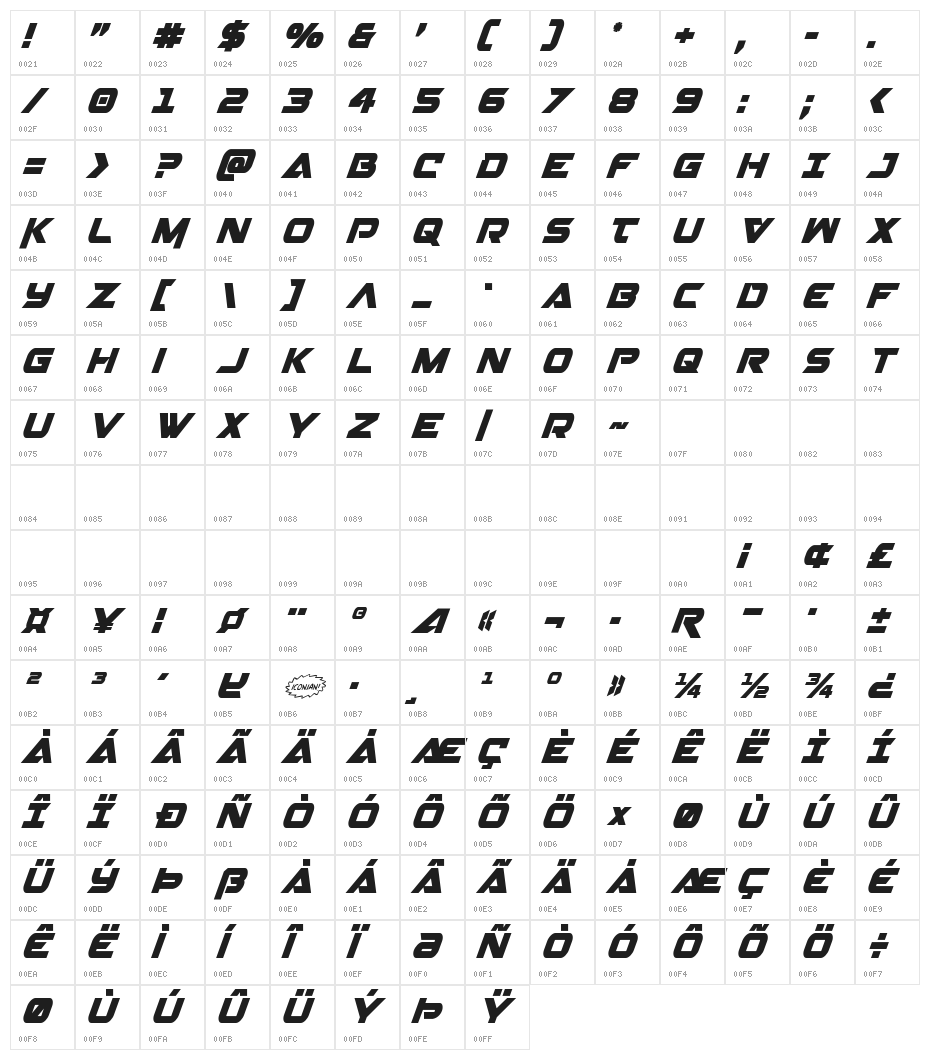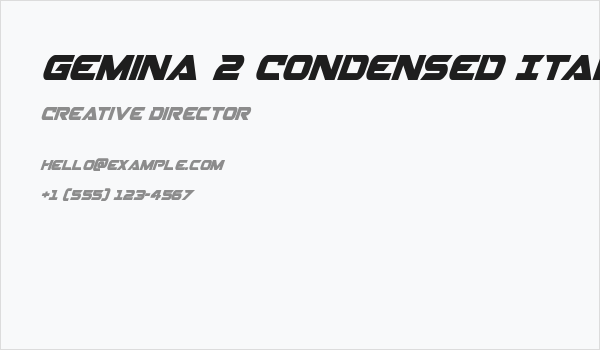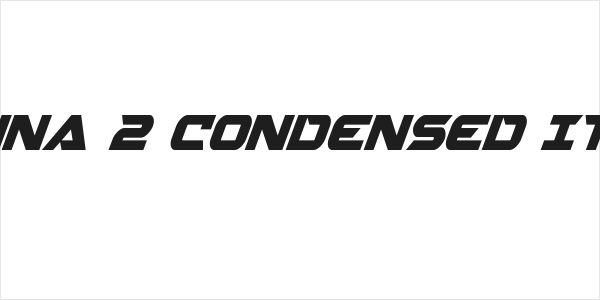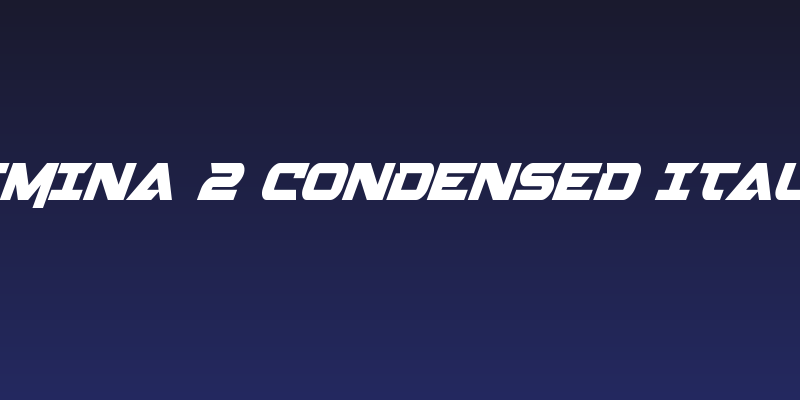
Gemina 2 Condensed Italic Font
Gemina 2 Condensed Italic Description
This font features a dynamic and angular design, characterized by its italicized and condensed form. The letters are sharply cut with a futuristic and aggressive style, making it stand out with its bold presence. The uppercase and lowercase letters maintain a consistent slant, enhancing the sense of motion and speed. The numerals and special characters follow the same stylistic approach, ensuring uniformity across all glyphs. The overall appearance is sleek and modern, suitable for projects that require a strong visual impact.